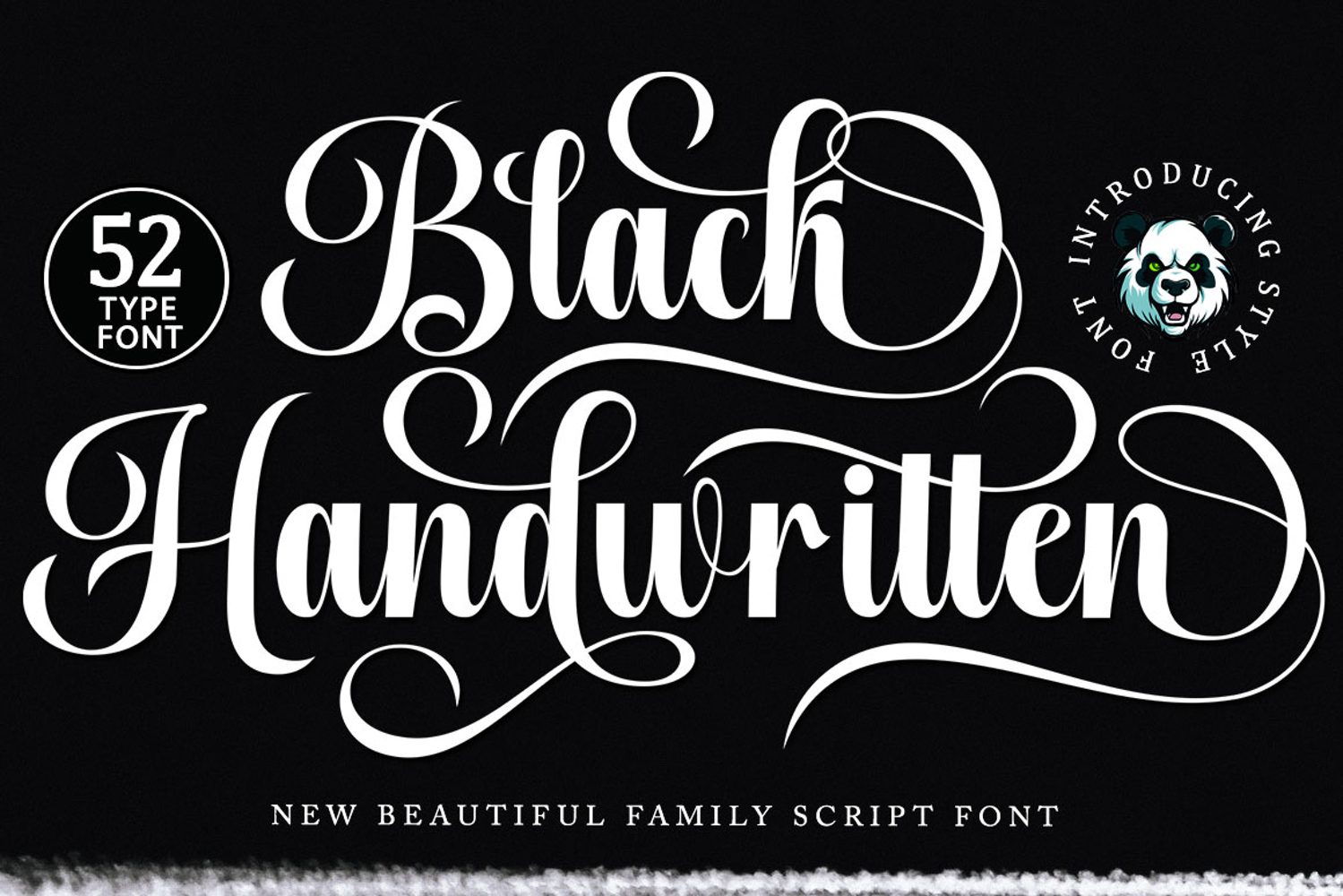
Black Handwritten - Family Scipt Font
Black Handwritten Family Scipt Font is a modern script font that features a classic and elegant touch.
Black Handwritten Family Font because it is sleek, clean, feminine, sensual, glamorous, simple, and very readable, thanks to its many beautiful letter connections. I also offer a number of decent style alternatives for some of the letters. The classic style is perfect for applying in various formal forms such as invitations, labels, restaurant menus, logos, fashion, makeup, stationery, novels, magazines, books, greeting/wedding cards, packaging, labels, or all kinds of advertising purposes. . . . . . .
-Has 52 New Type Fonts.